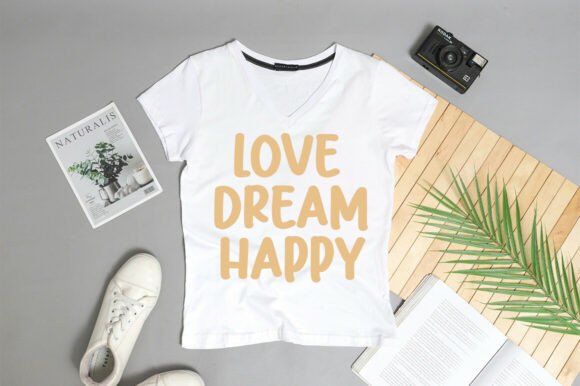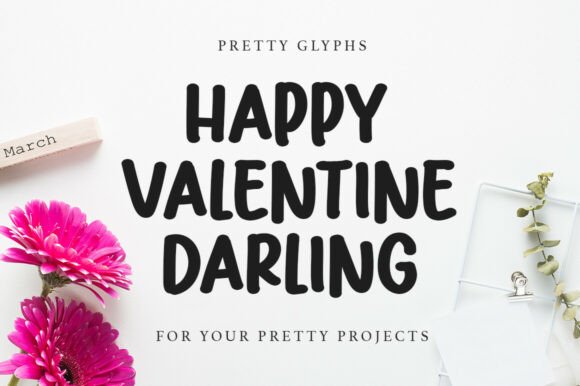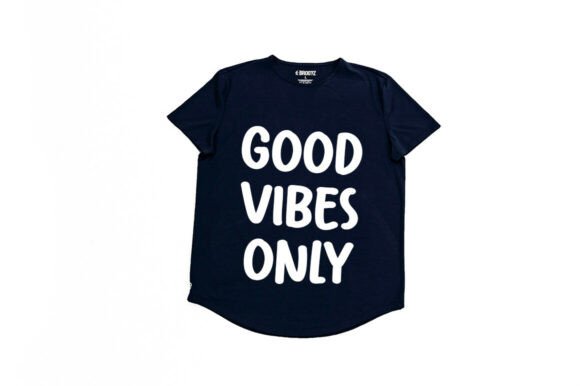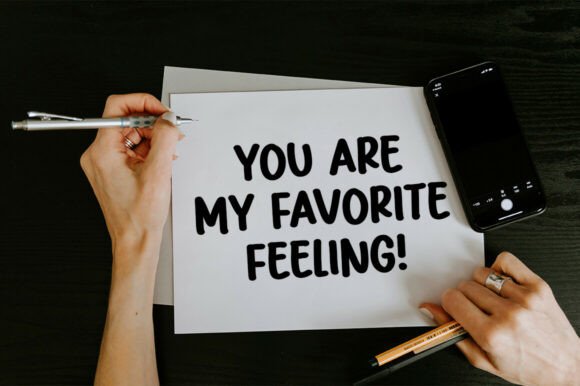
Introduction to Smiley Bunny Font
Have you ever stumbled upon a design that instantly sparks your imagination and makes you want to create something of your own? For designers, that moment is pure magic. It’s the thrill of discovering a unique font that speaks directly to your creative soul, urging you to unleash your artistic vision. And that’s exactly what the Smiley Bunny Font does – it ignites the fire within, fueling your passion for creative expression.
This extraordinary font is not just another addition to your design arsenal; it’s a game-changer. With its hand-drawn brush strokes and captivating, handmade texture, the Smiley Bunny Font brings an authentic, distinct feel to every project it touches. Whether you’re working on a branding project, social media content, or any other creative endeavor, this innovative font ensures your message is delivered with unwavering confidence and artistic charm.
Key Features of Smiley Bunny Font
- High-quality vector graphics for a crisp and clear appearance, ideal for use in digital designs.
Honest Review: Smiley Bunny Font
I recently had the chance to try out the Smiley Bunny Font, and I must say it’s a unique addition to any design project. The font features a fun, playful bunny character that’s perfect for creative projects that need a touch of whimsy. It’s a high-quality font that looks great on any background, including the option for a transparent background.
- ✨ Unique and playful design that’s perfect for kids’ projects or Easter-themed designs
- ✨ High-quality vector format for crisp, clear lines
- ⚠️ Limited character set, making it less suitable for extended text projects
- ⚠️ May not be suitable for formal or professional designs due to its playful nature
Overall, I’d say the Smiley Bunny Font is a fun and creative resource that’s perfect for designers looking to add some personality to their projects. While it may have some limitations, it’s a great addition to any design library, especially for those working on free download projects or requiring a transparent background.
Smiley Bunny Font
Tips for Getting the Most Out of the Smiley Bunny Font
Experiment with different font sizes, colors, and styles to create a visually appealing design. Use the font in combination with other design resources to add depth and creativity to your project.
The Smiley Bunny Font is ideal for creative projects, such as social media graphics, posters, and flyers. Its high-quality features and transparent background make it perfect for overlaying text on images or using as a standalone design element.